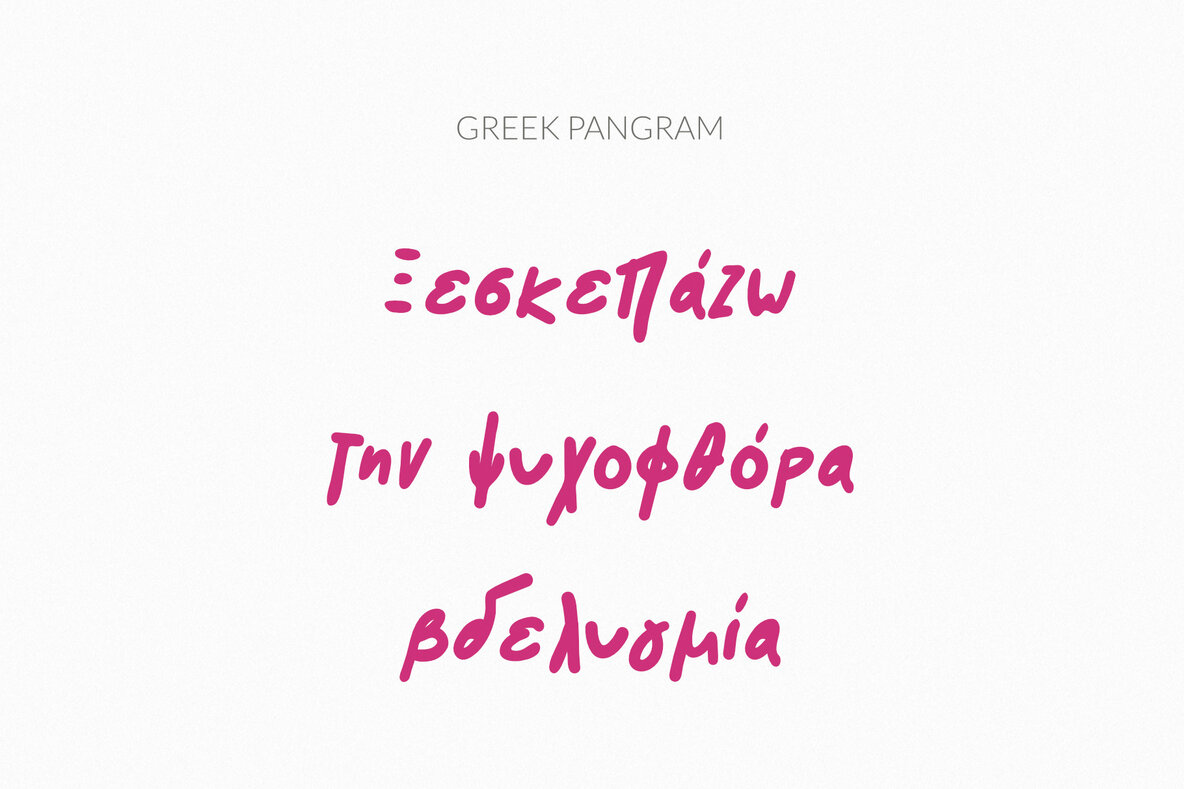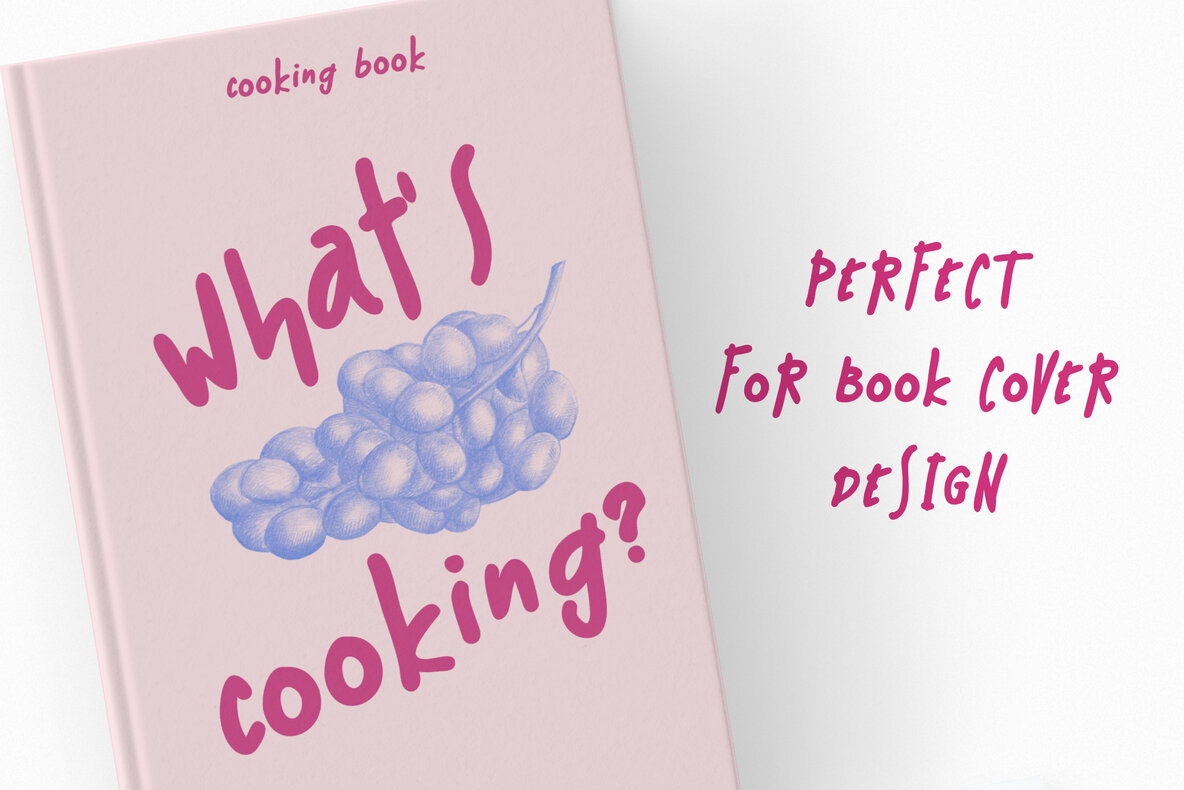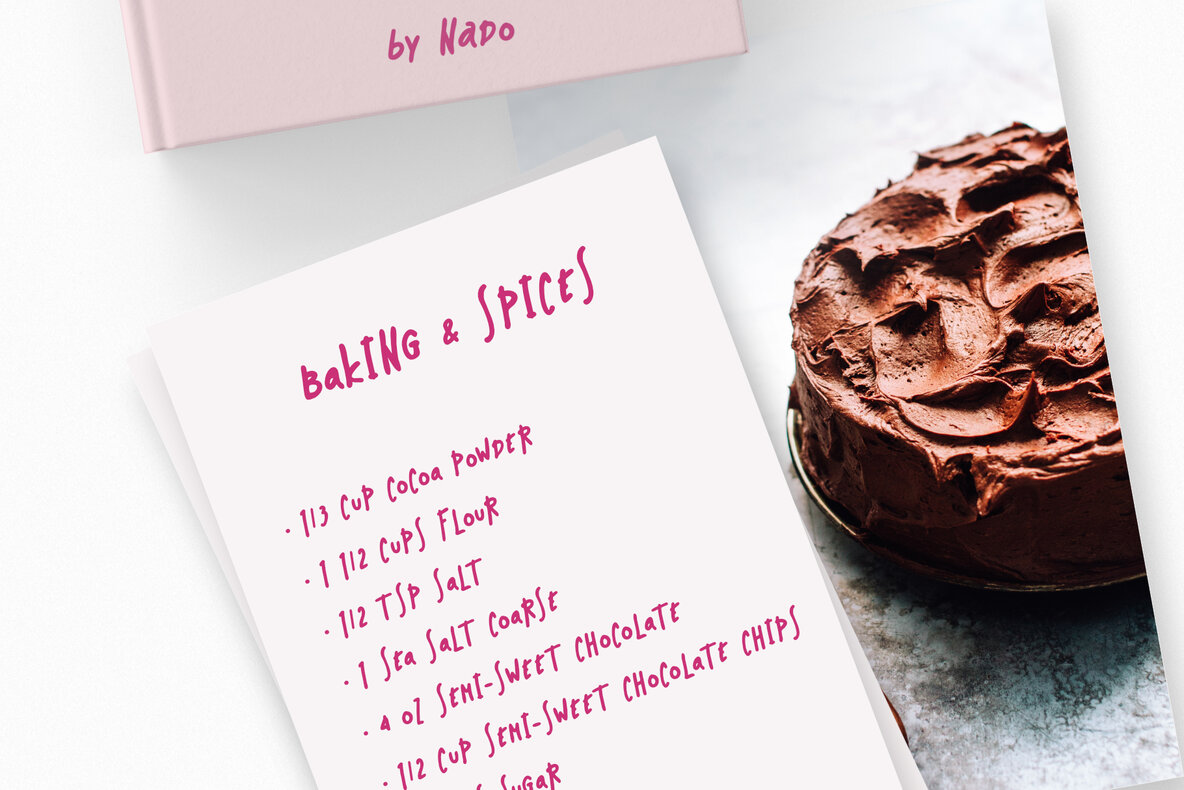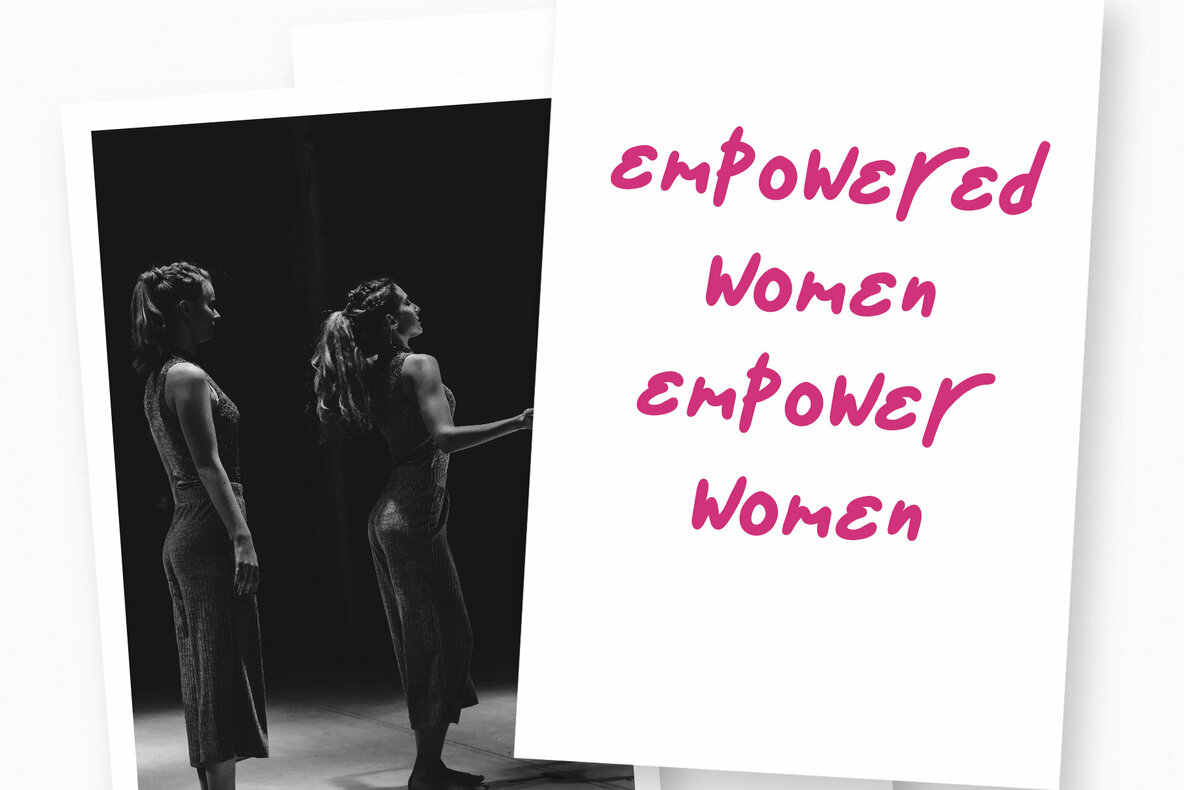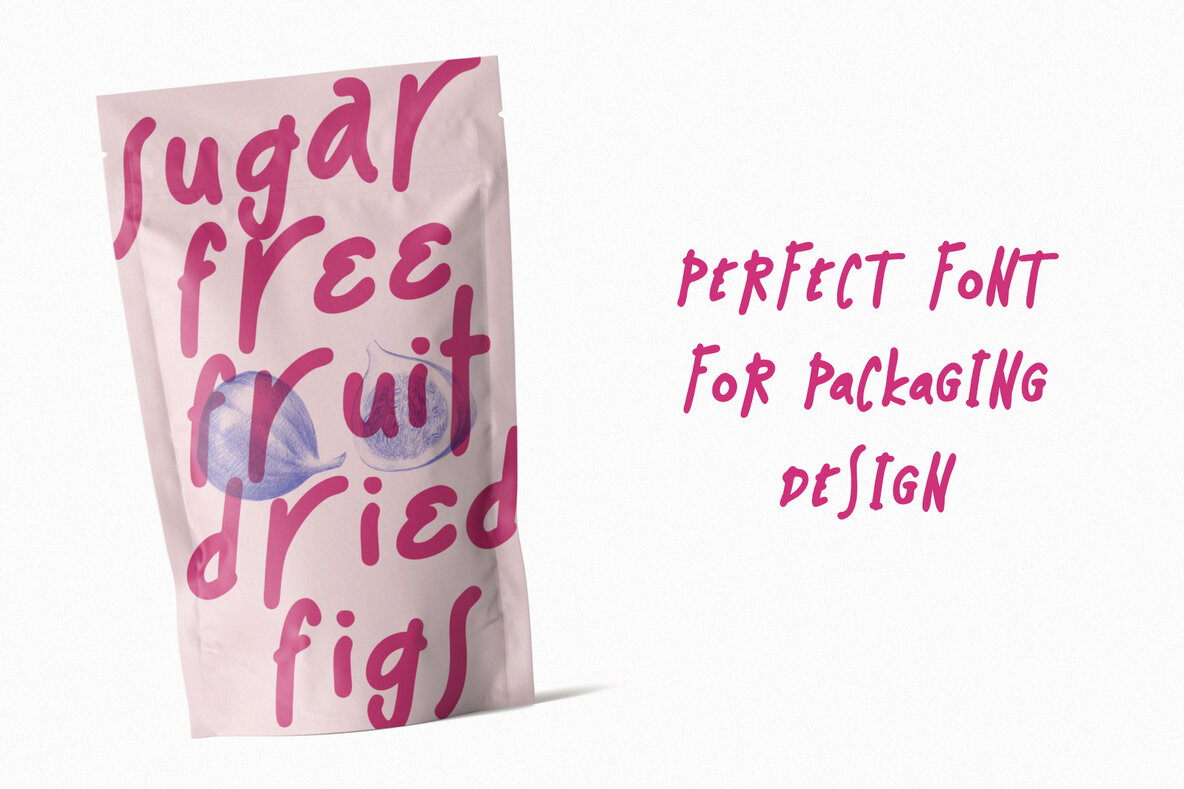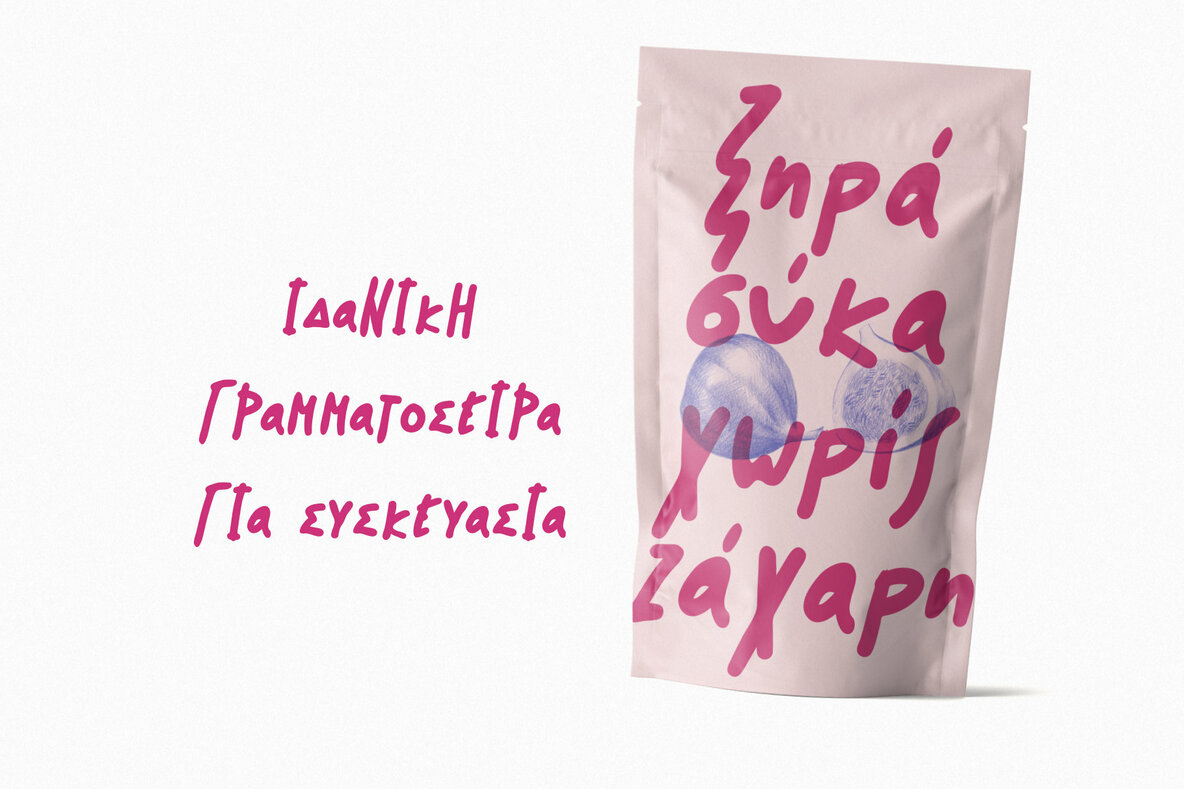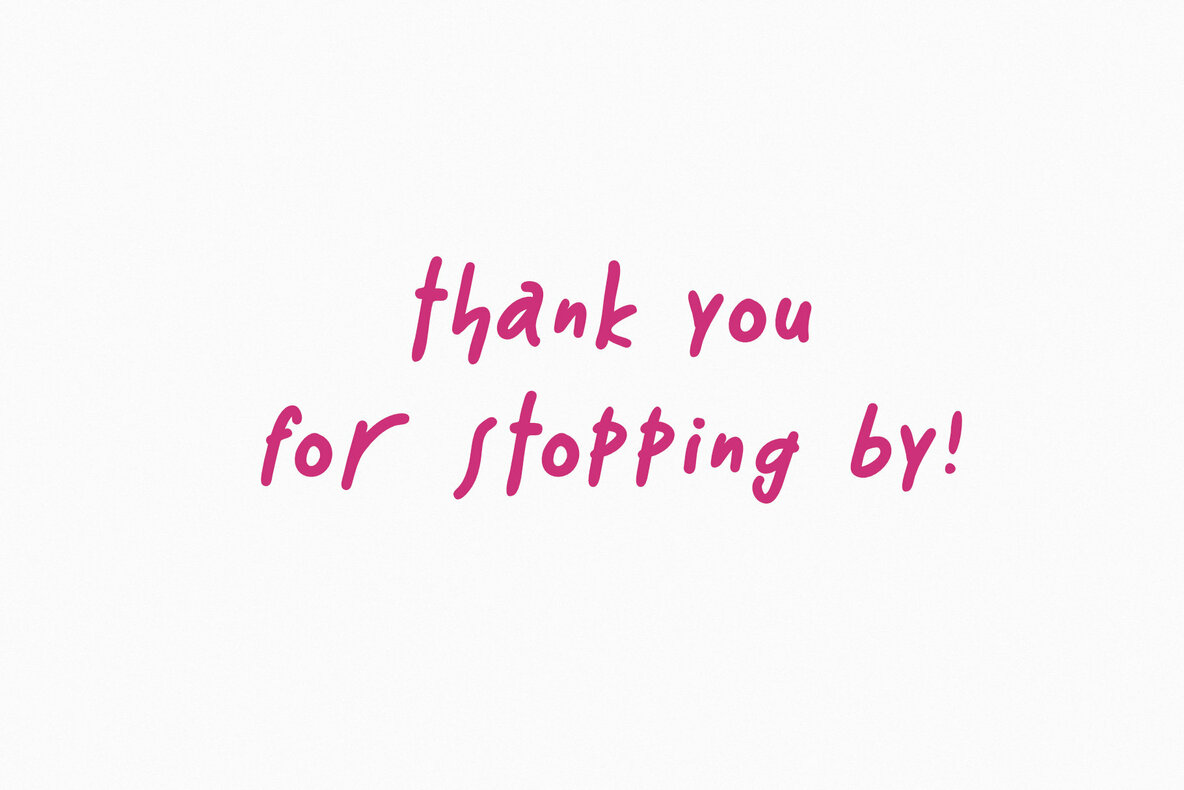
Muri Font
NF Muri Regular
Muri Font is your basic cute font. A handwritten, multilingual, display font, with Greek and Basic Latin characters, punctuation marks, diacritics and numbers. The font is hand crafted, but still maintains it's legibility and balance so it can be used in packaging and logotypes.